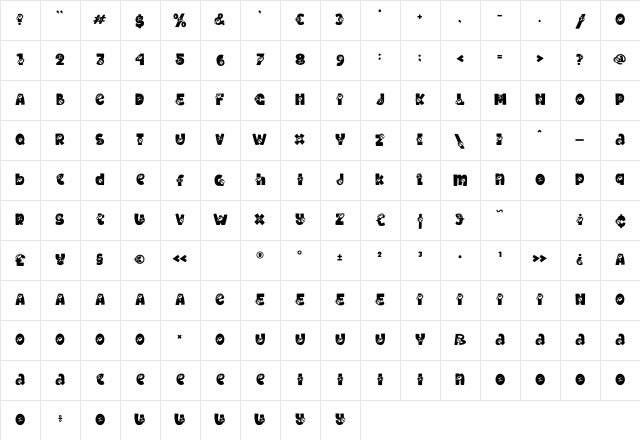
Study Symbol Sport Free Font
Study Symbol Sport
Style: Sport
Foundry: Putracetol Studio, Karanganyar.
Designer: Putra Novembria Candra Kusuma
Design Context for Study Symbol
Study Symbol brings high-energy athletic personality to the page - its confident, muscular forms are built for impact.
Pro Tip: Use Study Symbol in all-caps headlines where its athletic energy can fully express itself. Pair with a solid, simple sans for supporting text.